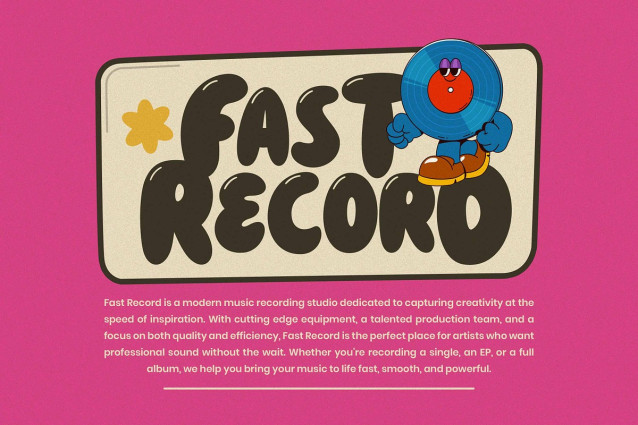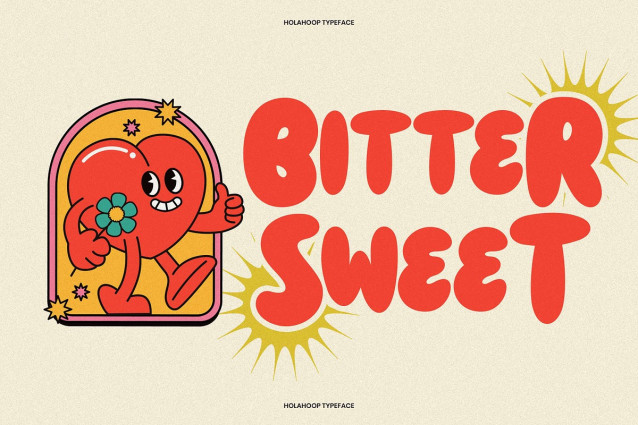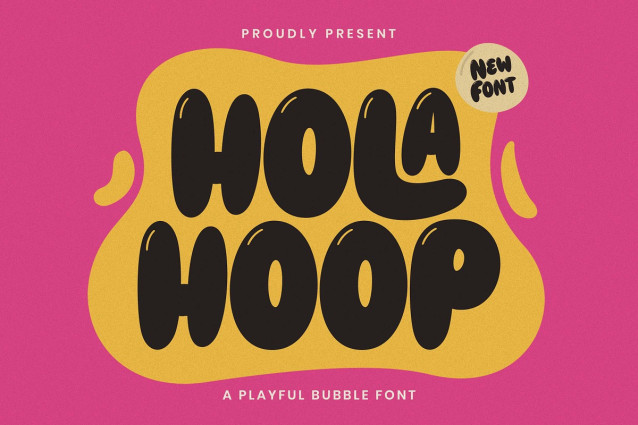
Holahoop Playful Font
Holahoop Playful Font a playful bubble font that’s full of life and personalit. With its bold, rounded shapes and cheerful bounce, HOLAHOOP is designed to make any design feel fun, loud, and full of good vibes. Inspired by retro cartoons and pop-style graphics, this font brings a nostalgic punch with a modern twist. Whether you’re creating vibrant poster art, energetic social media graphics, funky packaging, or playful branding, HOLAHOOP brings a groovy, hand-lettered charm that stands out. Perfect for creatives who want their designs to shout “fun” in every letter. Let HOLAHOOP roll into your work and turn up the happy.